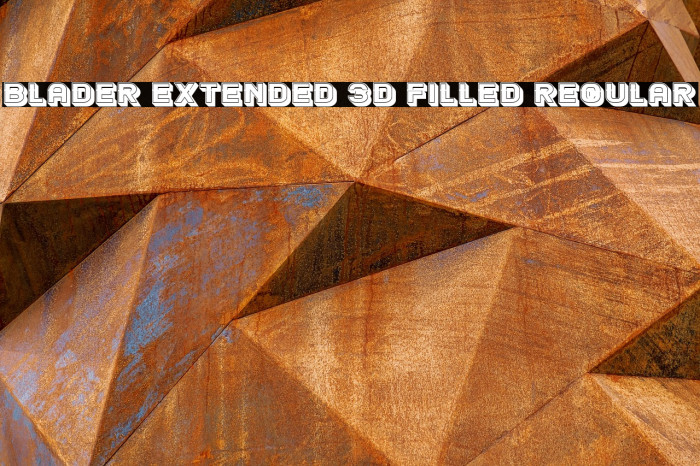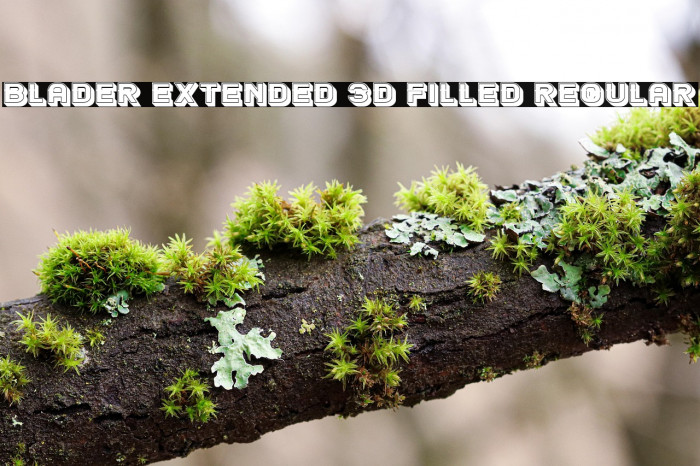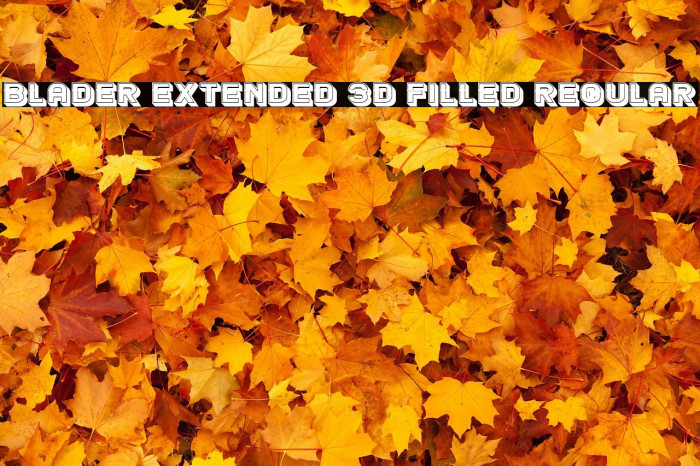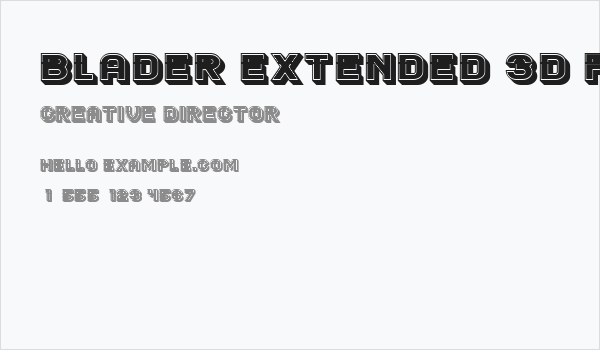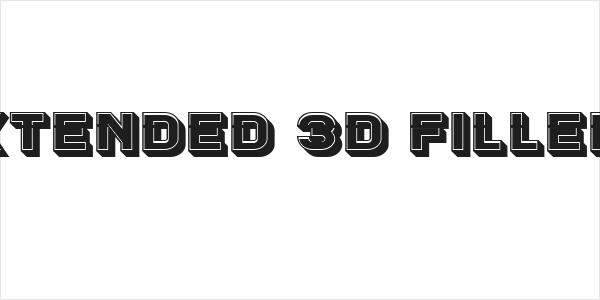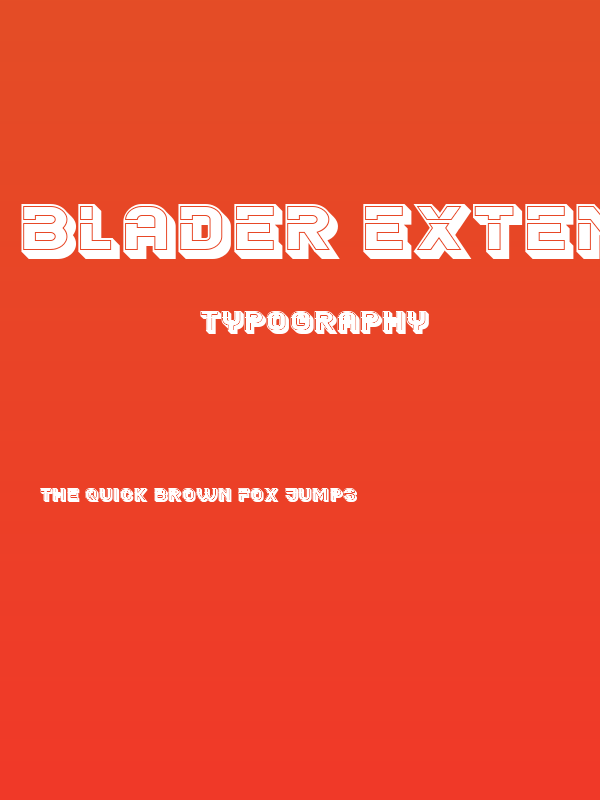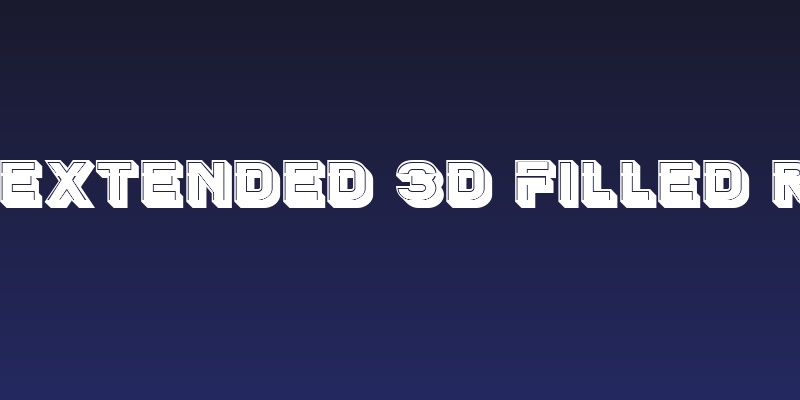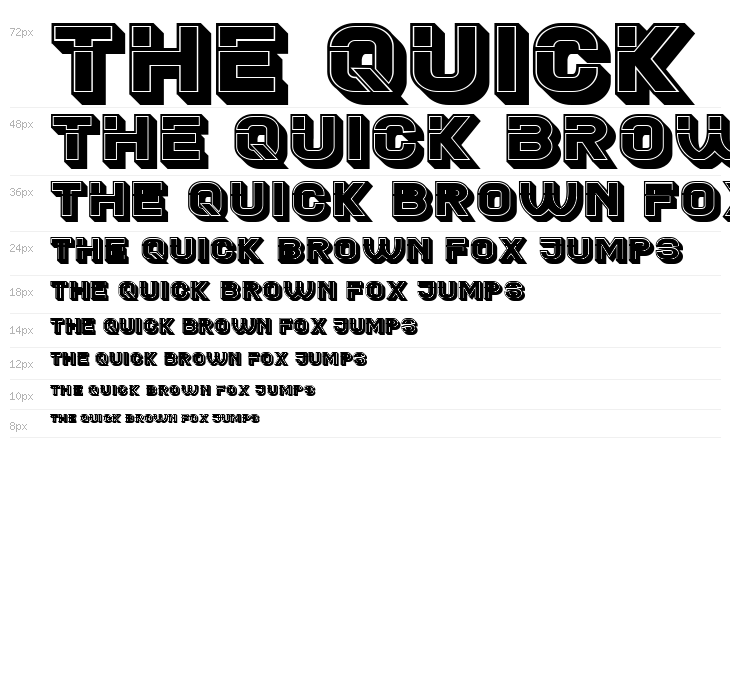
Blader Extended 3D Filled Regular Font
Blader Extended 3D Filled Regular Description
This font features a bold, three-dimensional design with a filled interior and extended structure. The characters are uppercase with a strong geometric influence, creating a sense of depth and solidity. The edges are sharp and precise, contributing to a modern and impactful appearance. The numbers and special characters maintain the same bold, 3D style, ensuring consistency across all elements. This font is ideal for projects that require a striking and memorable visual impact.
| Proposed Projects | Ideal for posters, headlines, logos, and any design requiring a bold, impactful statement. |